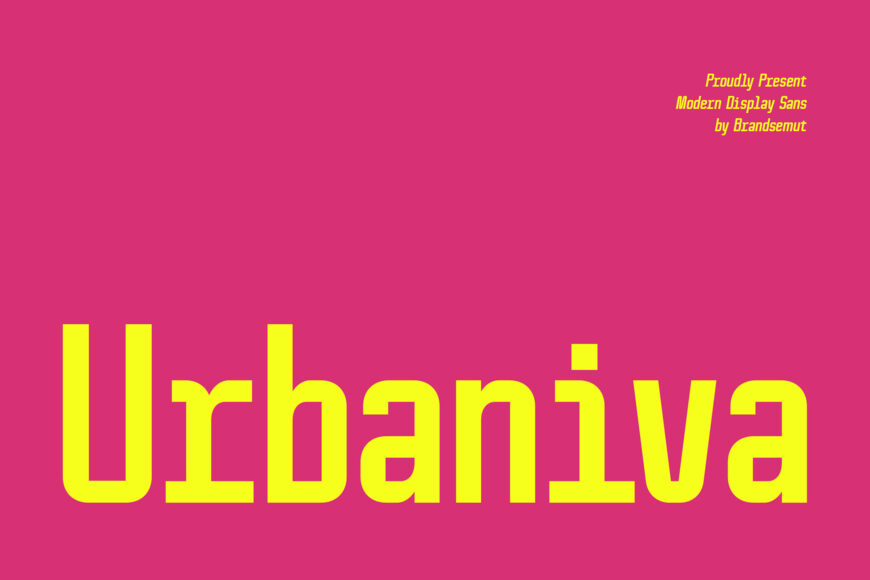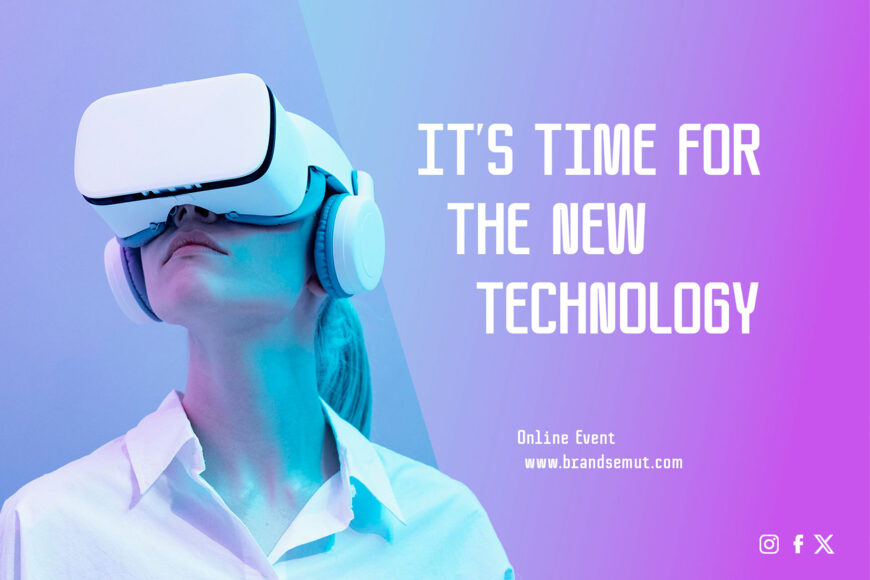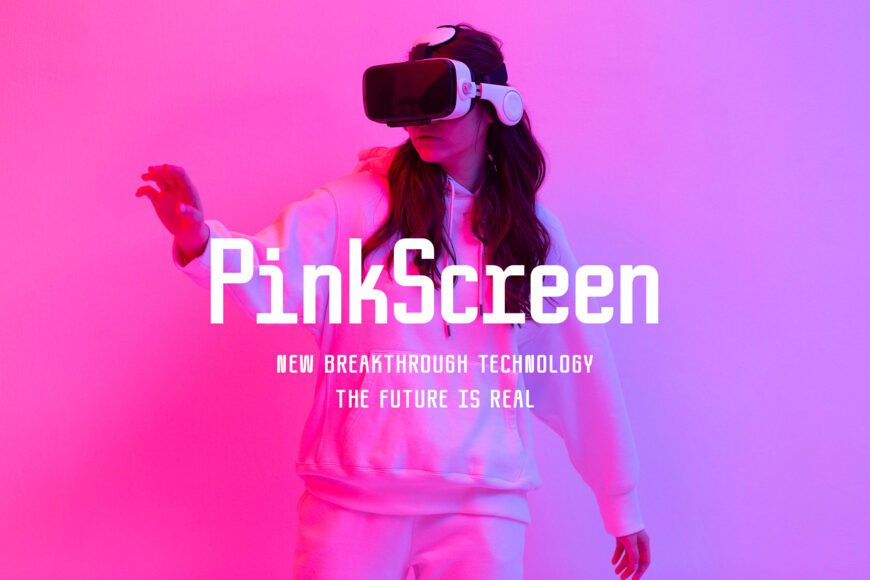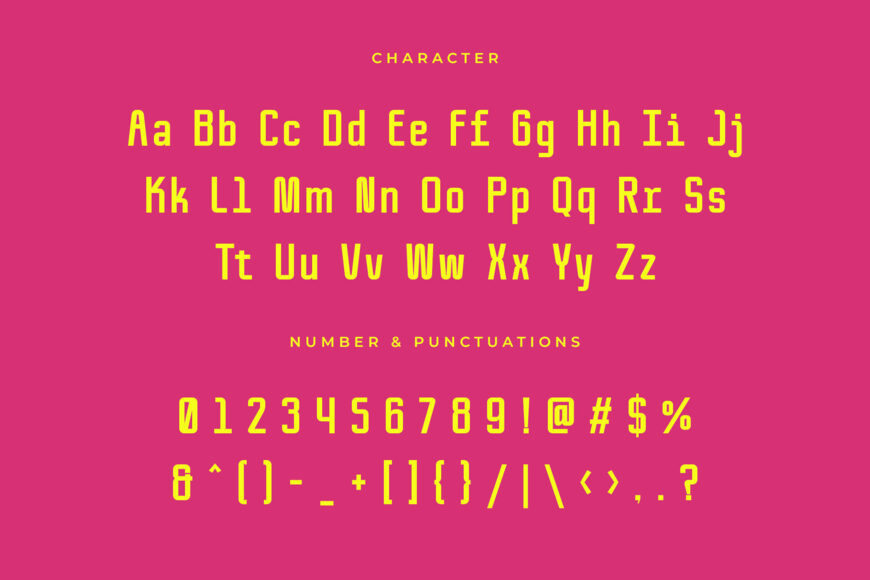
Urbaniva Font
Introducing Urbaniva, a futuristic sans serif font with a clean, modern aesthetic. Its smooth curves and crisp lines make it ideal for headlines, logos, branding, magazines, packaging, and invitations. Urbaniva adds a sleek, sophisticated touch to any creative project.
Designed by: Brand Semut (BrandSemut)